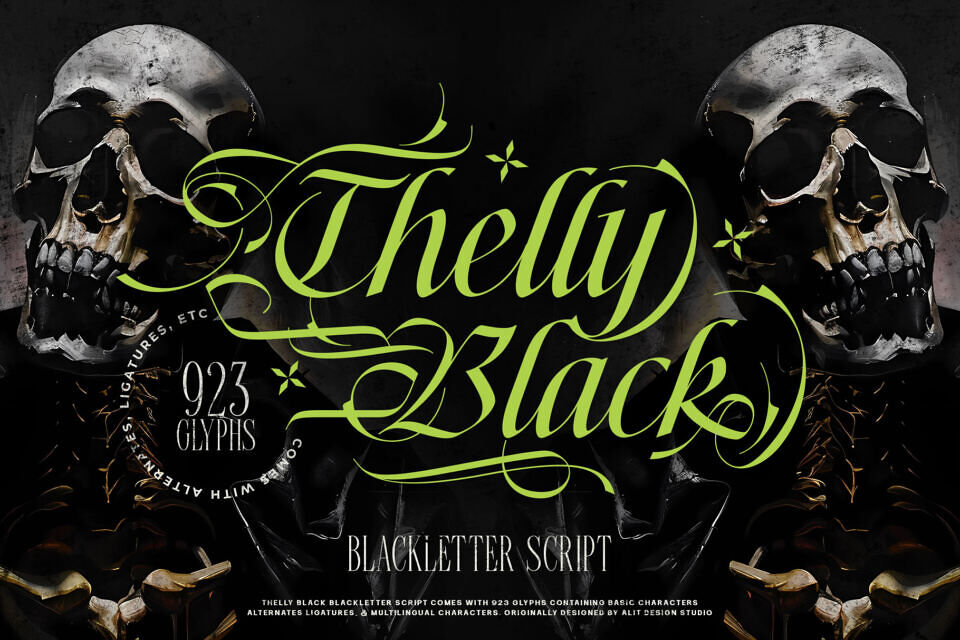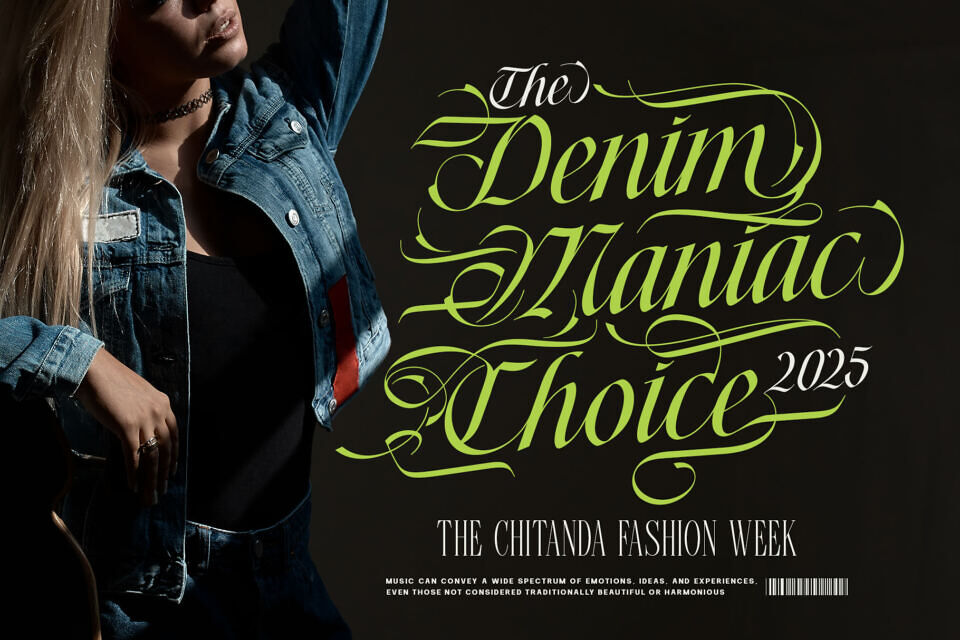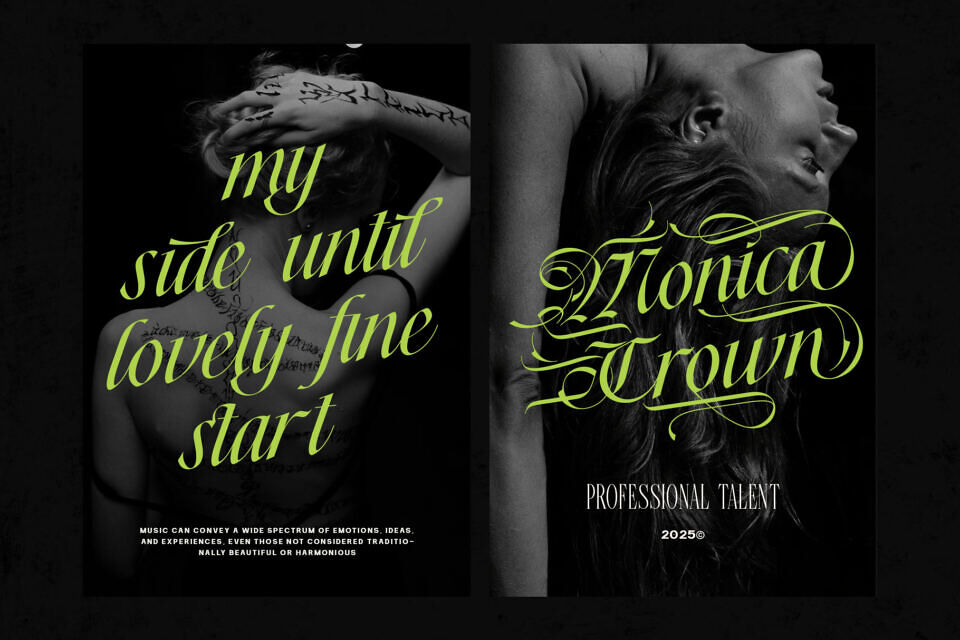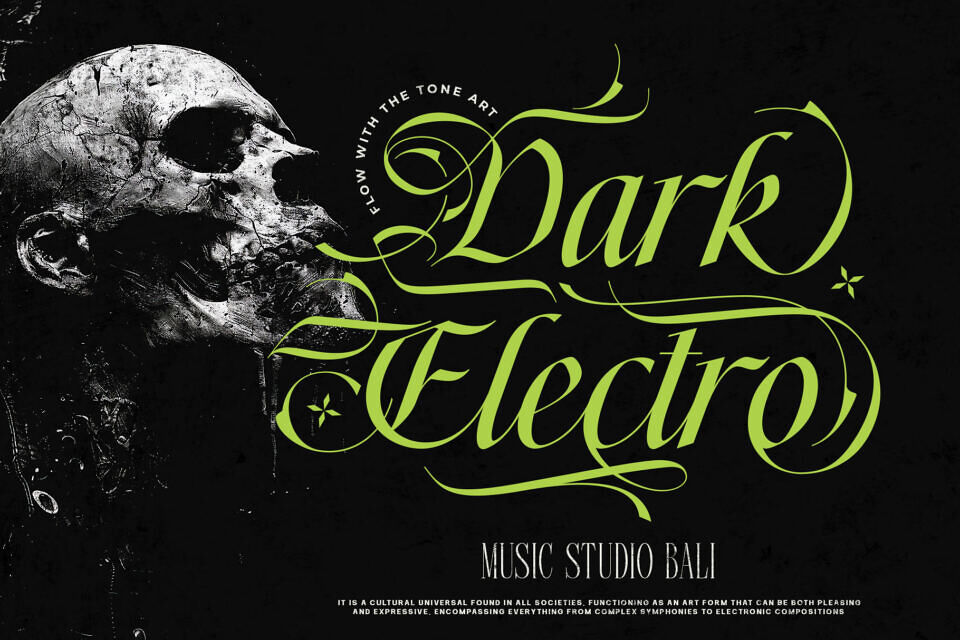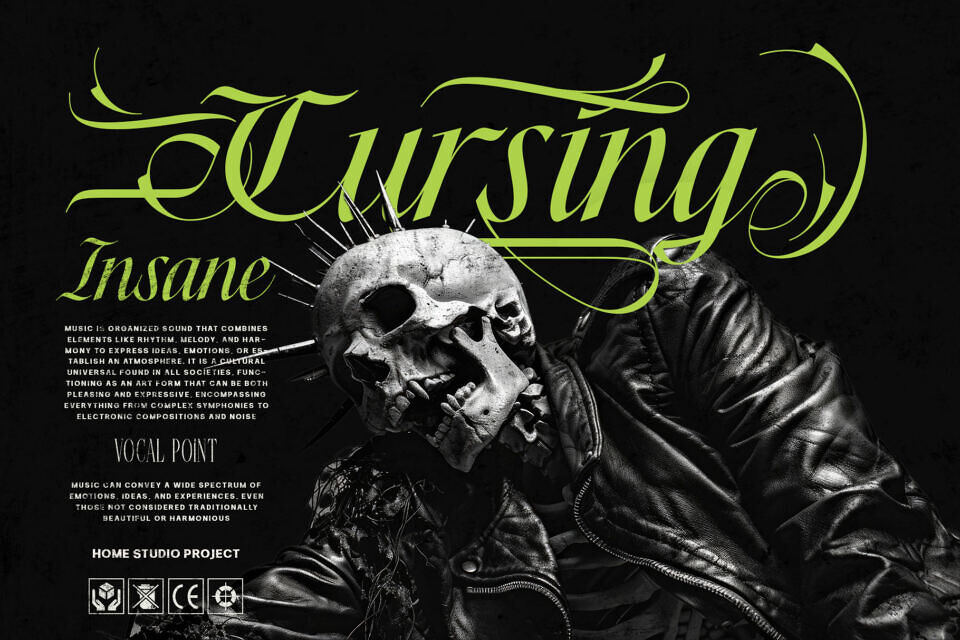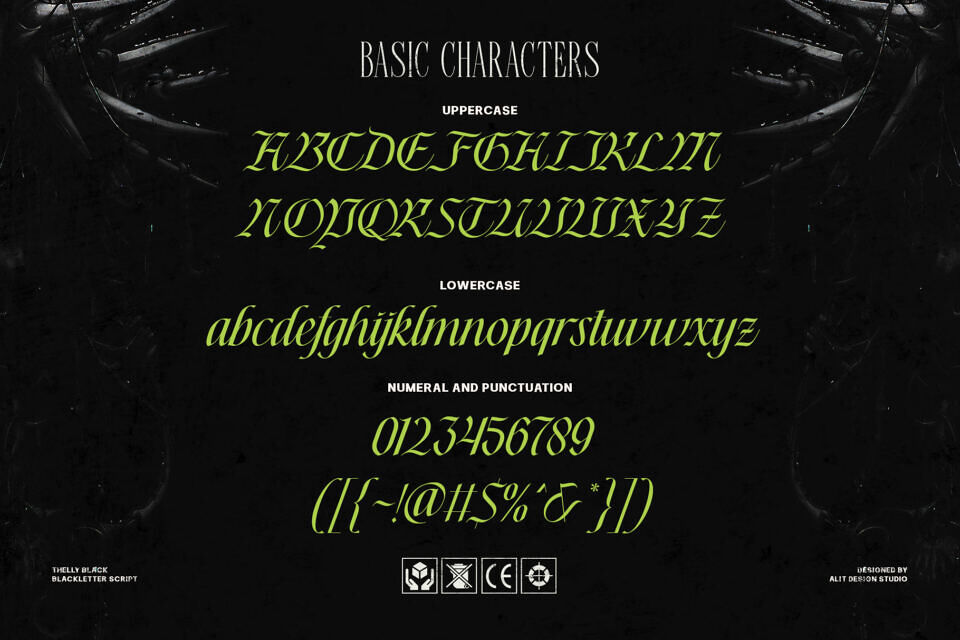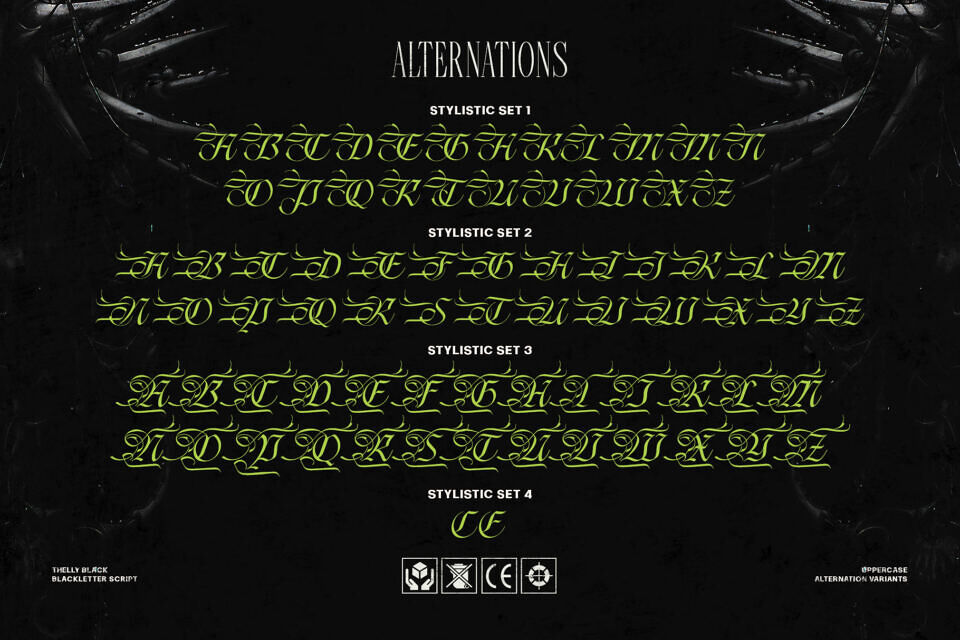
Thelly Black Font
Thelly Black is a bold blackletter script font that fuses traditional calligraphy with raw modern energy. Featuring 923 glyphs, including extensive alternates, ligatures, and swashes, it offers limitless customization for striking designs.
Its sharp strokes and intricate details create dramatic impact, making it ideal for band logos, tattoo studios, edgy fashion, and powerful branding. With full multilingual support, Thelly Black delivers elegance, rebellion, and creative freedom—perfect for projects that demand unforgettable style and fierce visual identity.